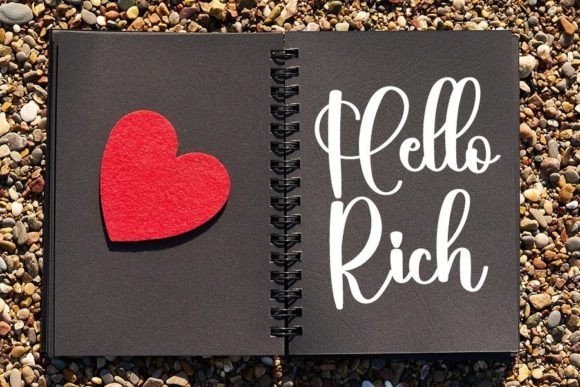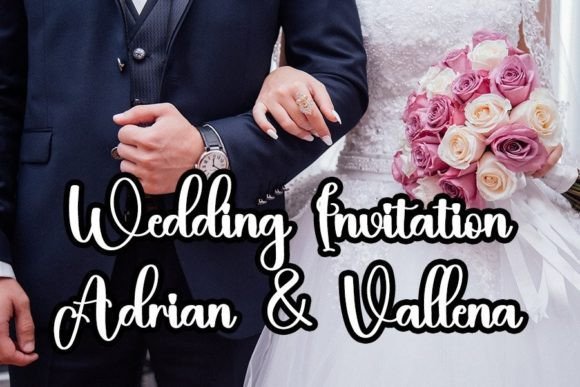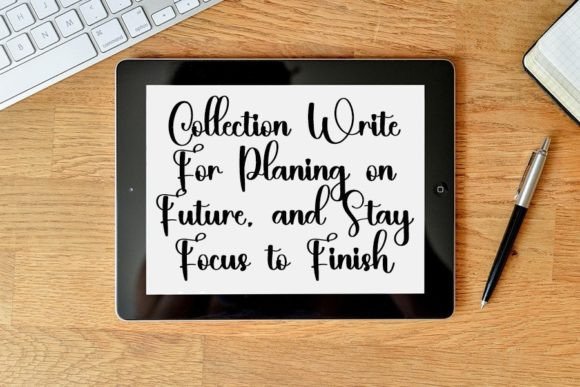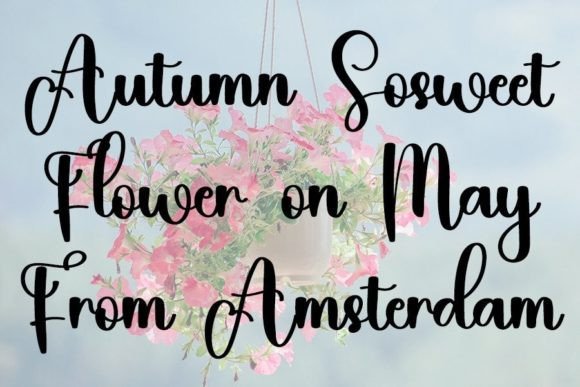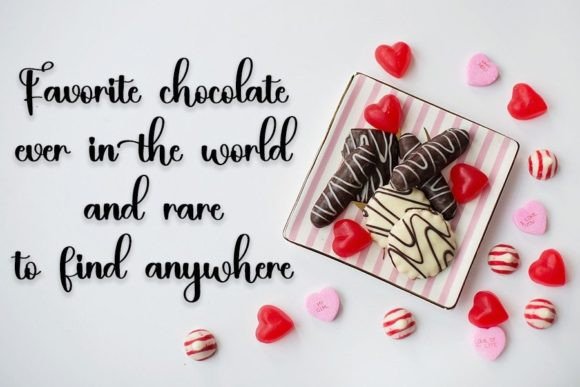
Happie Font
About Happie Font
“Happie” is a stylish handwritten font that combines a contemporary atmosphere with impeccable form, drawing inspiration from timeless classic calligraphy. With its balanced and varied design, this font is crafted to enhance the beauty of your projects, adding a touch of elegance and sophistication.
The font’s stylish and contemporary vibe makes it suitable for a wide range of design applications. Whether you’re working on branding materials, wedding invitations, social media posts, quotes, posters, or any other creative project, “Happie” lends a refined and graceful appearance to your designs. Its timeless calligraphic influence adds a sense of class, making it a versatile choice for both formal and creative endeavors.
One of the strengths of “Happie” lies in its impeccable form and balance. The font’s smooth and flowing characters create a harmonious visual experience, making your text appear polished and well-crafted. Its readability and elegant strokes ensure that your message is conveyed with clarity and style, leaving a lasting impression on your audience.
By incorporating “Happie” into your projects, you’re infusing them with a sense of sophistication and beauty. Its stylish handwritten design adds a touch of class, making your designs visually appealing and memorable. Whether you’re a graphic designer, a wedding planner, or an individual working on personal projects, “Happie” provides you with a refined and elegant font choice to elevate your creative endeavors and create designs that exude timeless charm and impeccable form.